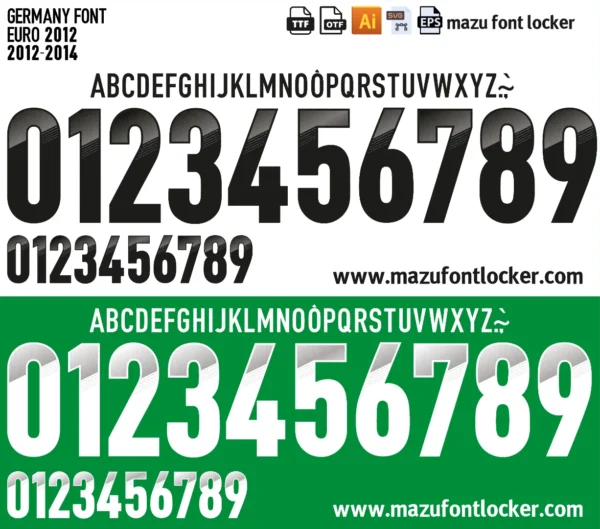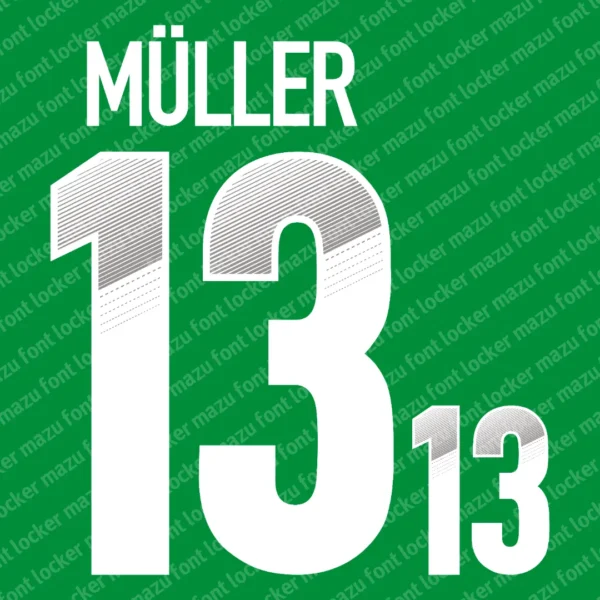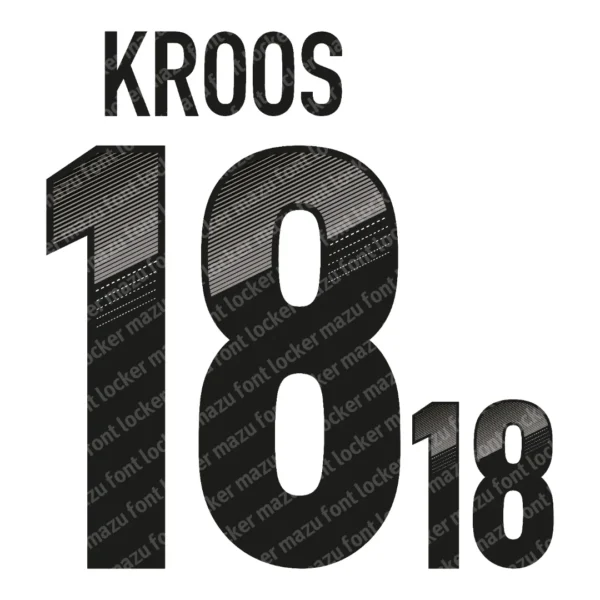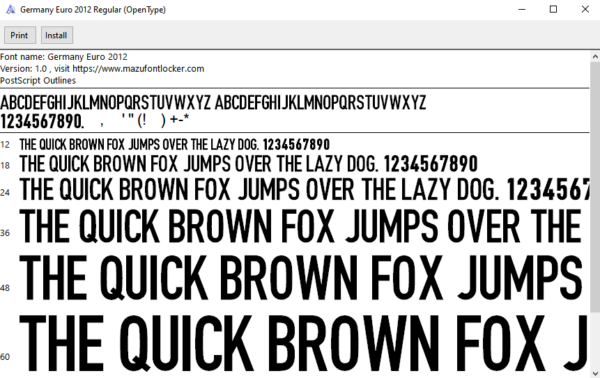
Germany Euro 2012 Font Vector – Unstoppable German Machine Masterpiece
This premium font captures the commanding, iconic, majestic, and war-machine lettering that embodies the unstoppable German spirit — delivering raw Teutonic power, explosive precision engineering, iron-clad discipline, tactical dominance, and legendary Die Mannschaft warrior grit that made the entire European continent tremble.
Germany Euro 2012 Font Vector – Authentic White & Black Typeface
The Germany Euro 2012 Font Vector is a premium typeface that accurately recreates the official match lettering worn by the German national team during their impressive Euro 2012 campaign. This high-quality vector font kit captures the bold, disciplined, and powerful typography that represents Germany’s rich football heritage, tactical brilliance, and legendary Mannschaft spirit.
Designed for professional designers and passionate DFB supporters, the Germany Euro 2012 Font Vector delivers perfect authenticity for creating realistic jersey mockups, fan merchandise, matchday posters, social media graphics, and international football content. It pairs beautifully with the iconic white kit with black and red accents, one of the most recognizable national team identities in European football.
Why Choose Germany Euro 2012 Font Vector
This font stands out because of its sharp vector precision and strong national identity. Every letter and number is crafted to match the exact style used on the players’ shirts during Germany’s Euro 2012 journey. Whether you are creating realistic kit templates or exciting DFB-themed content, the Germany Euro 2012 Font Vector gives your designs that authentic Allianz Arena and tournament atmosphere.
The letterforms in the Germany Euro 2012 Font Vector are bold, clean, and highly readable. The strokes feature powerful geometric construction combined with modern athletic styling and traditional German precision, creating a professional appearance that stands out on jerseys while preserving the German national team’s legendary football heritage and competitive spirit.
The numerals feature strong curves and sharp, precise edges, delivering a confident and premium appearance. This vector design ensures flawless scalability and excellent legibility across both print and digital applications.
- Full uppercase A–Z and numbers 0–9 in authentic Germany Euro 2012 style
- Multilingual Latin character support including English and special characters
- Includes the exact crest glyph placement used beneath player numbers
Germany Euro 2012 Campaign
The Euro 2012 tournament was a memorable chapter for the German national team as they delivered exciting, attacking football and reached the semi-finals. Featuring stars like Mesut Özil, Thomas Müller, Manuel Neuer, and a young, dynamic squad, Germany showcased their trademark efficiency and quality throughout the competition.